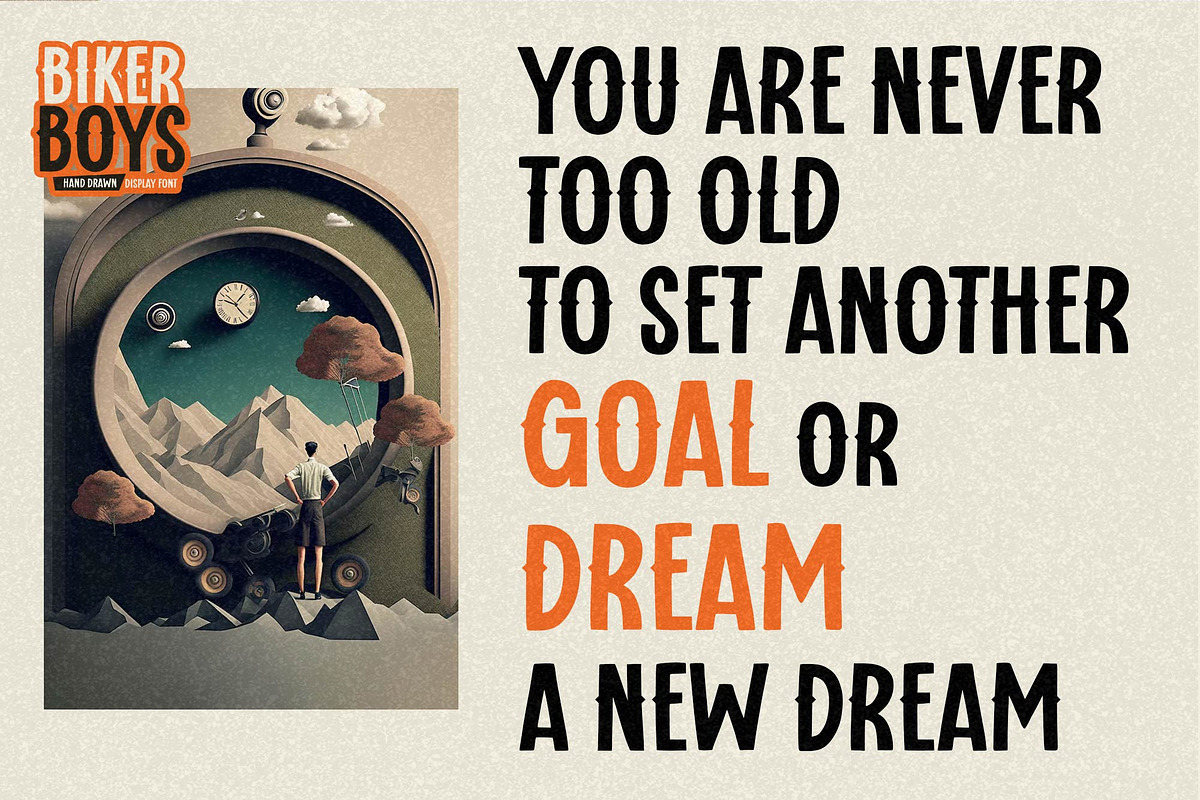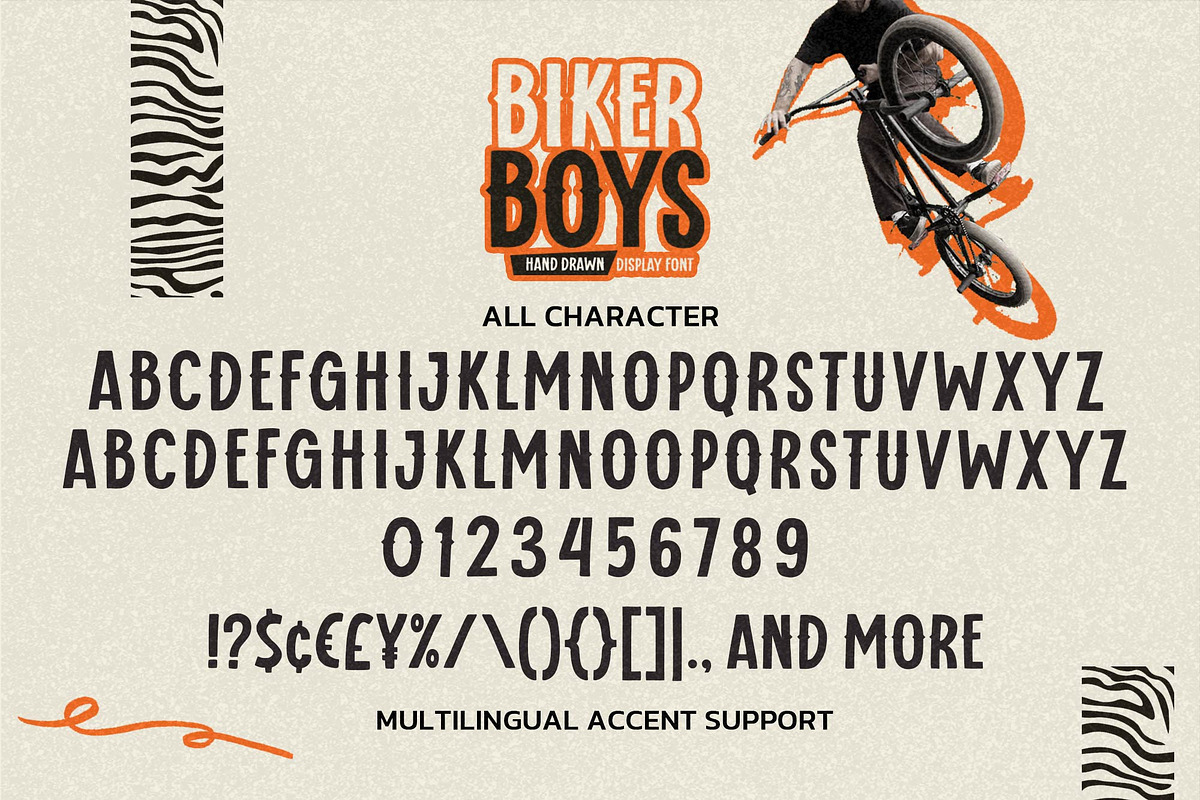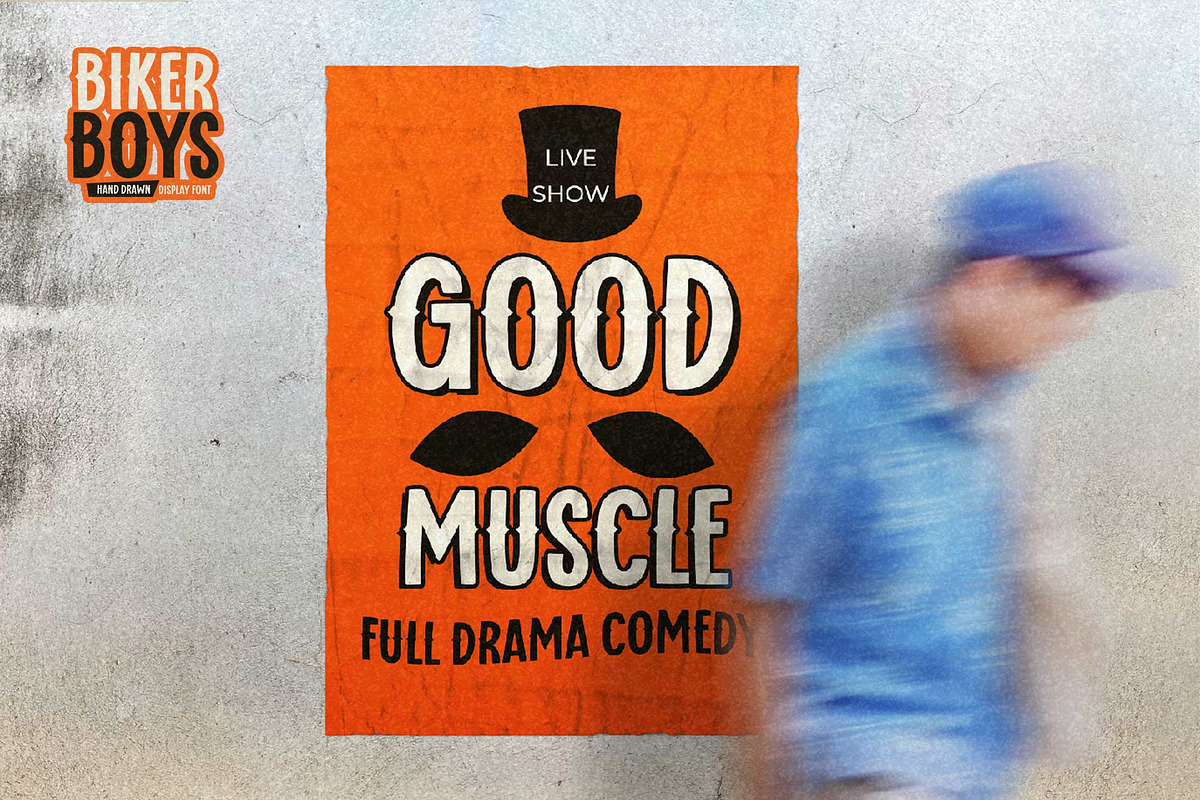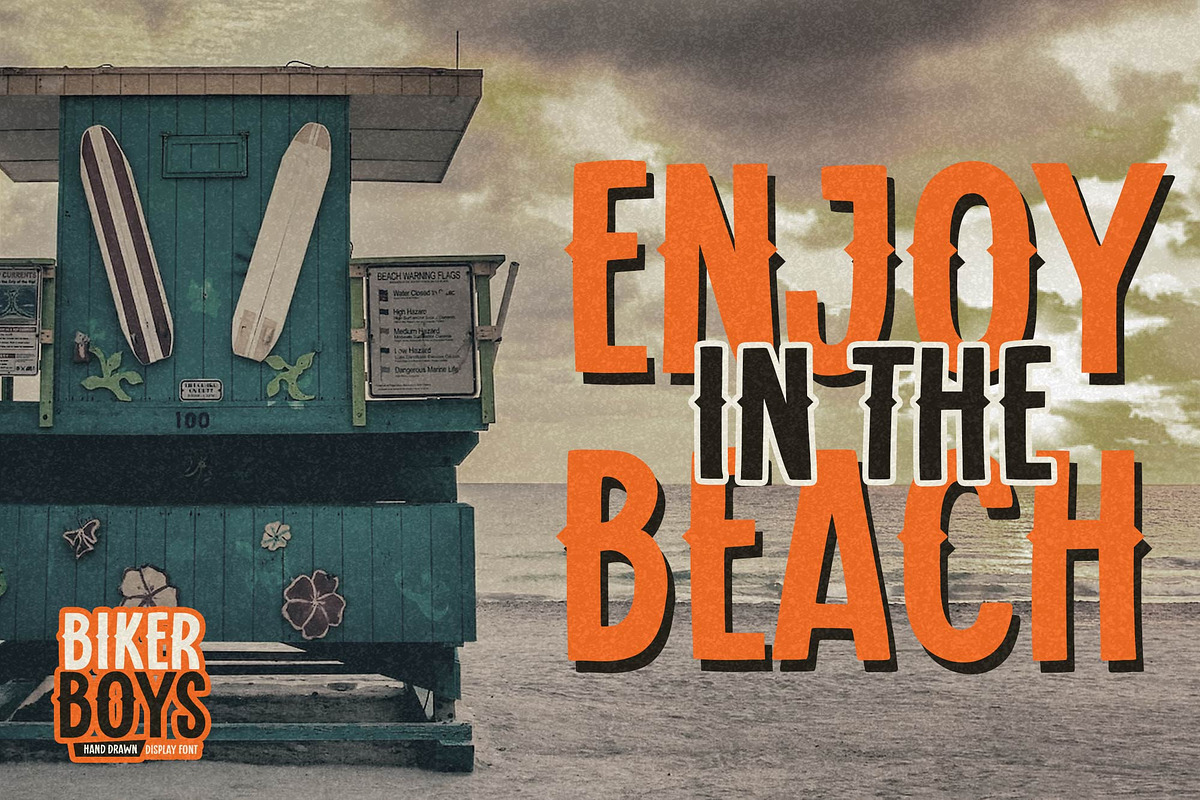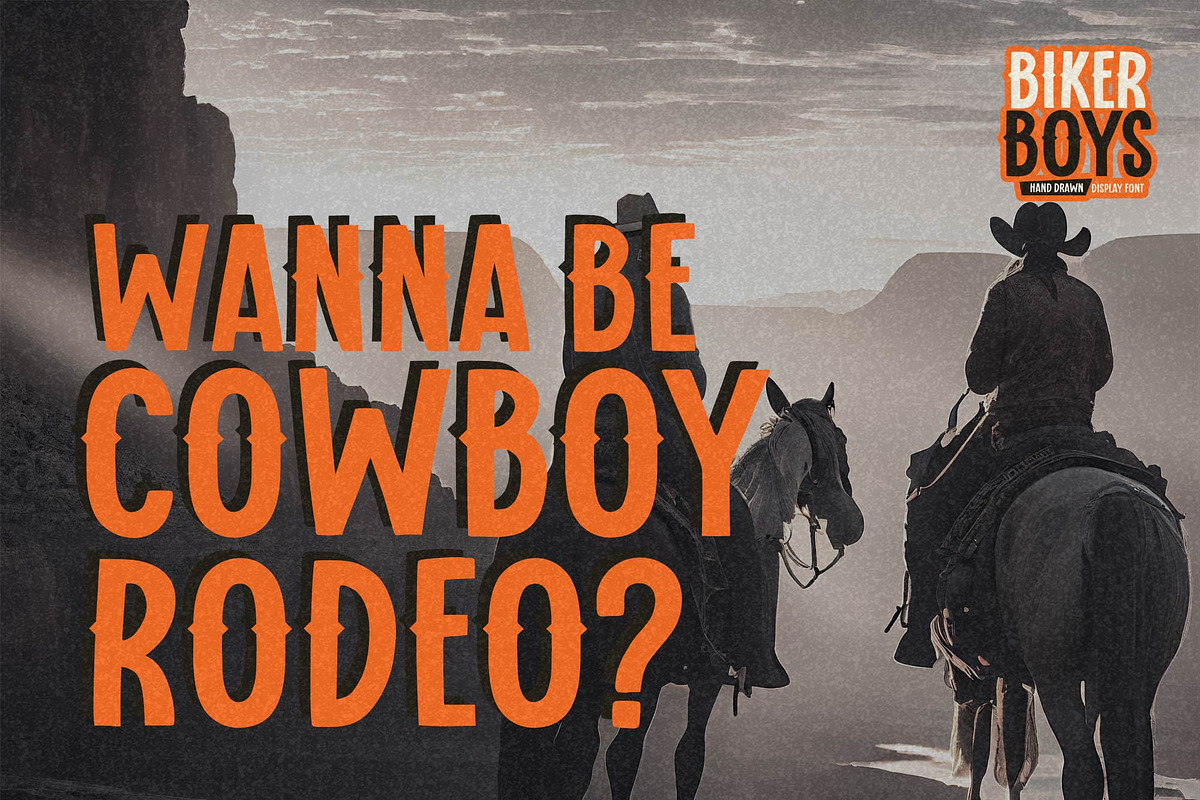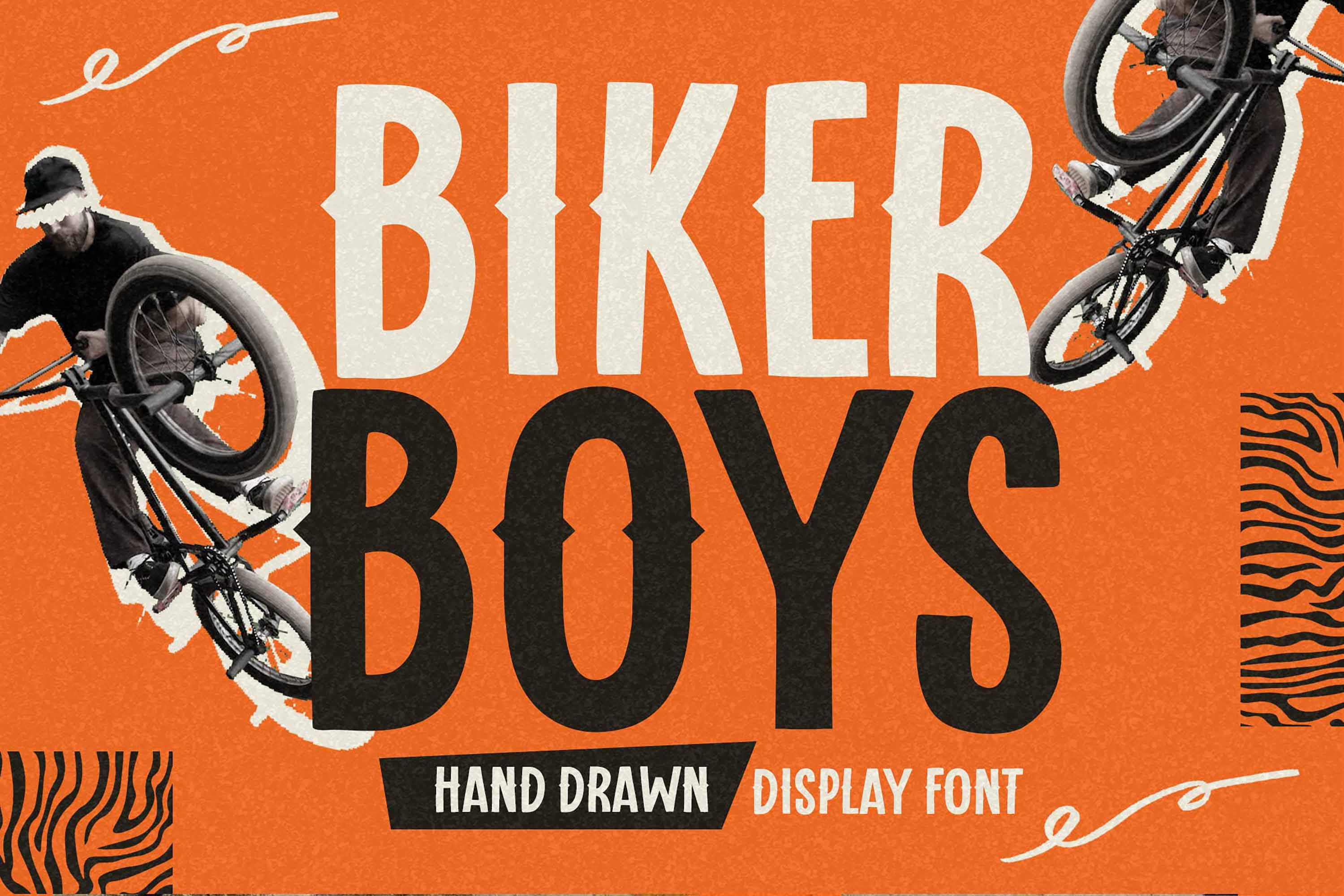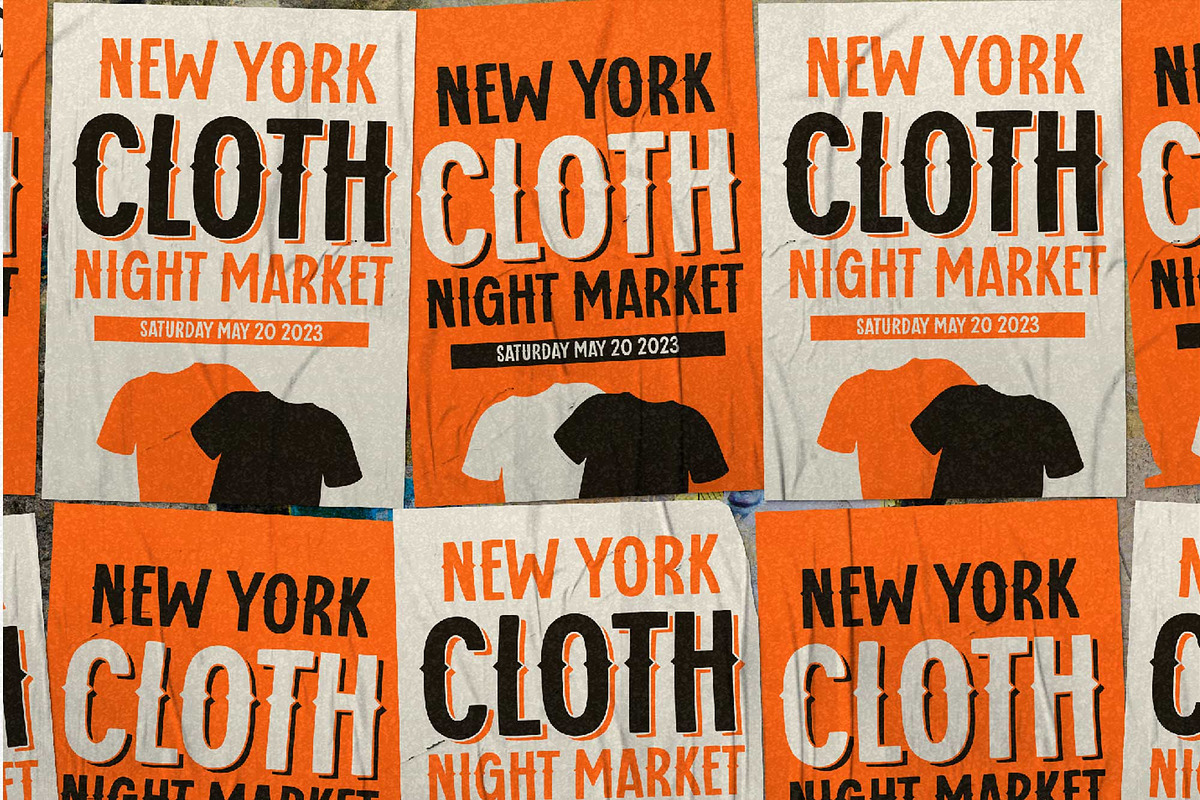
Biker Boys - Hand Drawn Display Font
Hello Everyone, introduce our new product Font Biker Boys This Is Hand Drawn Display Font.This is a Textured Natural Style and classy style with a clear style and dramatic movement.
This font Biker Boys is great for your next creative project such as logos, printed quotes, invitations, cards, product packaging, headers, Logotype, Letterhead, Poster, Design this font is great for your creative projects such as watermark on photography, and perfect for logos & branding, invitation,advertisements,product designs, stationery, wedding designs,label ,product packaging, special events or anything that need handwritting taste.
That is has charming, authentic and relaxed characteristic more natural look to your text.